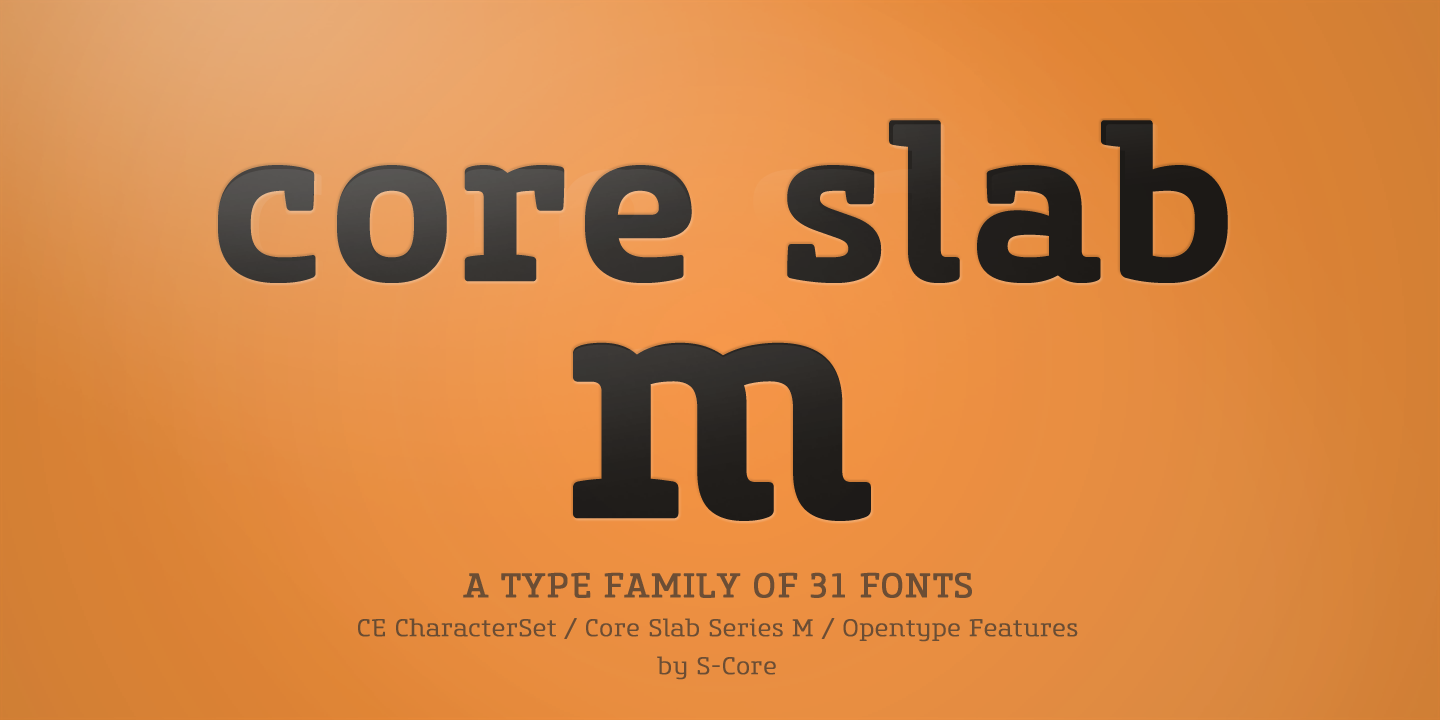
Core Slab M Font is perfect for corporate branding, editorial headlines, magazine mastheads, modern logos, architectural signage, technology websites, industrial design projects, and contemporary poster designs.
What makes Core Slab M Font exciting is its perfect balance of modern minimalism and classic slab serif tradition that creates strong visual impact while maintaining excellent readability. The robust character structure delivers authority and professionalism in any design context.
Core Slab M Font family includes thin, light, regular, medium, bold, and black weights, each available in regular and italic styles, providing comprehensive typographic flexibility for complex design systems.
Establish powerful visual presence with Core Slab M Font Free Download, the ultimate choice for contemporary design projects requiring both strength and sophistication. This exceptional typeface combines the reliability of traditional slab serifs with cutting-edge modern aesthetics, making it perfect for brands seeking to communicate stability and innovation simultaneously. The meticulously crafted letterforms feature optimized proportions that ensure outstanding performance across all applications, from large-scale environmental graphics to detailed body text. Professional designers worldwide appreciate the font's versatility in creating cohesive brand identities that stand the test of time. Its extensive weight range provides unlimited creative possibilities while maintaining consistent character throughout your design hierarchy. Experience the perfect fusion of classic typography principles and contemporary design sensibilities that elevates your projects above conventional expectations.